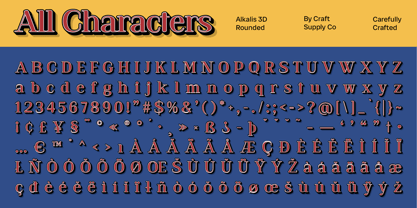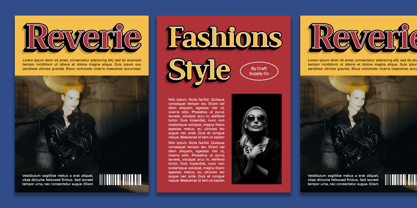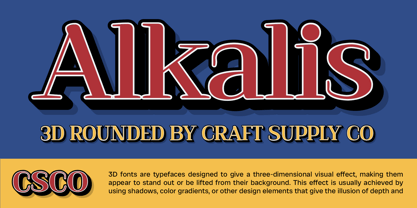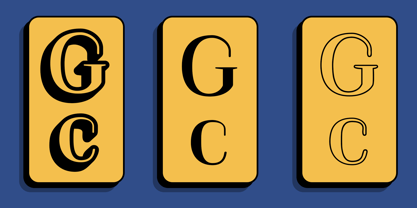
Alkalis Rounded
by Craft Supply Co
The Alkalis Rounded Font Family was designed by Trio Nazzar Saputra, Wahyu Hadi Yuana and published by Craft Supply Co. Alkalis Rounded contains 5 styles and family package options.
Alkalis Rounded: The Epitome of Elegance
Rounded Contrast
Alkalis Rounded features high-contrast serif characters with soft, rounded edges. This unique combination exudes elegance and sophistication, setting it apart from traditional serif fonts.
Elegance in Simplicity
The simplicity of This font belies its undeniable elegance. Its rounded serifs soften the overall appearance, adding a touch of refinement to any project.
Versatile Elegance
Designed for versatility, This font is equally at home in both digital and print applications. Its elegant demeanor makes it suitable for a wide range of design projects, from branding to editorial layouts.
Soft and Refined
With its rounded serifs and high contrast, This font achieves a delicate equilibrium between softness and refinement. The gentle curvature of its serifs imparts a sense of fluidity and grace, while the stark contrast between thick and thin strokes adds an element of sophistication.